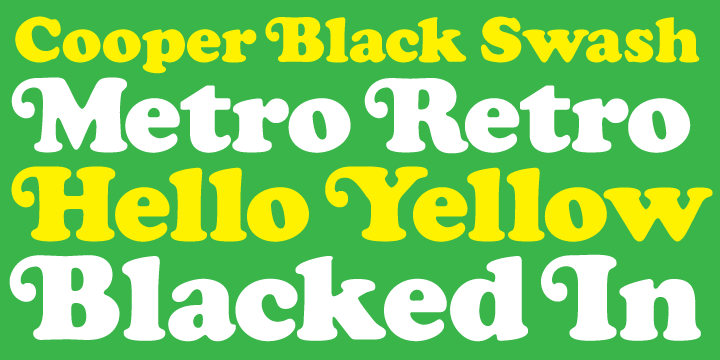
• Cooper Black Swash
Cooper Black, the most famous and successful of Oswald Cooper’s type designs was released in 1920, following a year of development fleshing out the weight of the typeface and filling out the full character set. Cooper redrew the lowercase characters multiple times, toying with the rounded forms of the “m” and “n” and engaged in a lively debate with Barnhart Bros. and Spindler’s General Manager Richard McArthur over the final form as McArthur requested that the typeface be drawn bolder and bolder. Cooper famously said the face was "for far-sighted printers with near-sighted customers", and the public agreed. Sales of Cooper Black were voluminous, and Barnhart Brothers and Spindler had a difficult time keeping up with the demand for the typeface. Conservative typographers were critical of Cooper Black, though it was overwhelmingly popular, helping to shape the American advertising landscape through the 1920s and 1930s. More…
Cooper released swash characters for his popular Cooper Black Italic, but never an upright set of swash capitals. A number of prototype versions appeared in the 1960s and 1970s, though none have been ushered into the digital age. Cooper Black Swash has been created in the spirit of Oz Cooper’s work and is a design that we believe he'd be quite pleased with!